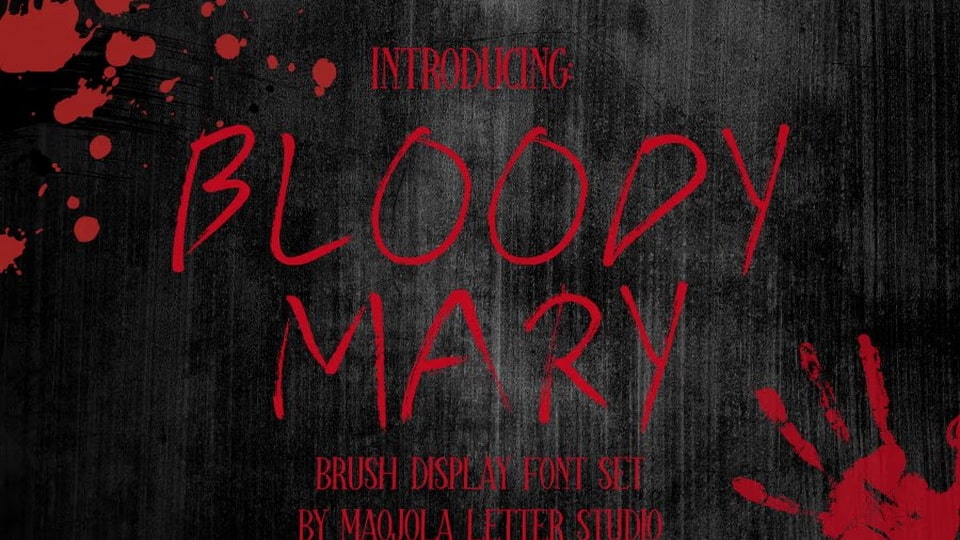
Download Bloody Mary font, a hand-painted brush typeface featuring a raw, rough texture and a chilling horror aesthetics with its jagged strokes and irregular edges.
Designer: Maojola Letter Studio